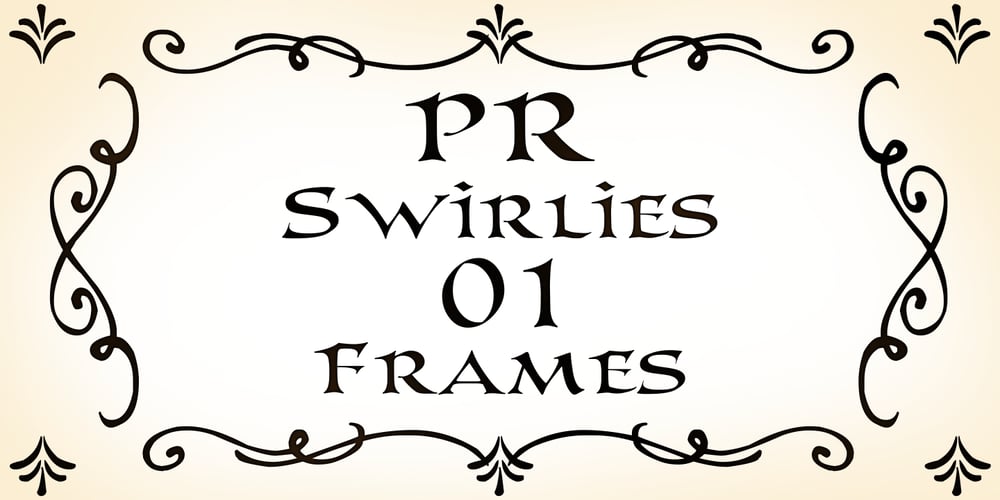
PR Swirlies 01 Frames
PR Swirlies 01 Frames font
PR Swirlies 01 Frames Font Family was designed by Peter Rempel and published by PR Fonts. PR Swirlies 01 Frames contains 1 styles and family package options. This font is a collection of simple calligraphic ornaments suitable for invitations, gift tags, and anything that can benifit from a “spoonful of sugar” visually. The frames font uses the same calligraphic elements as PR-Swirlies-01, but has them combines in ways which form an elliptical cartouche. Many of the elements can be used in a modular way to create frames of varying length.